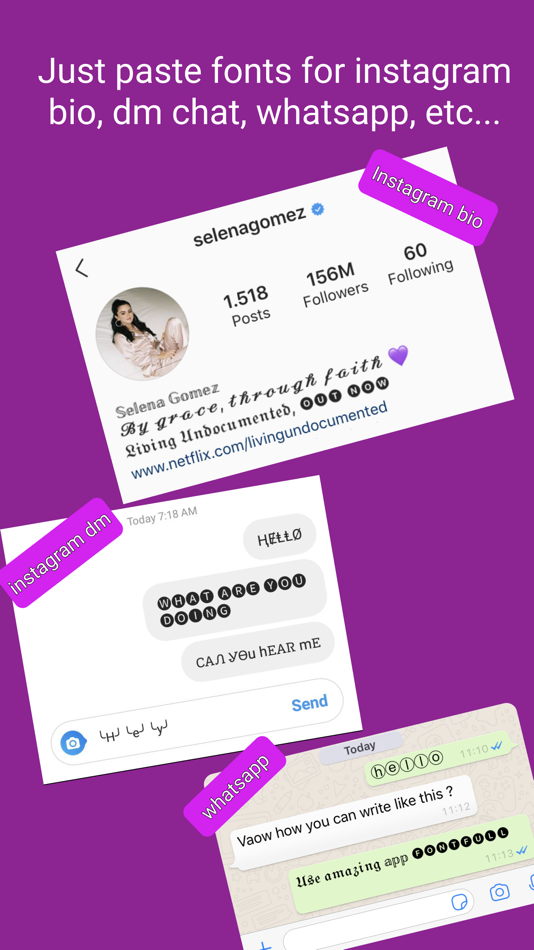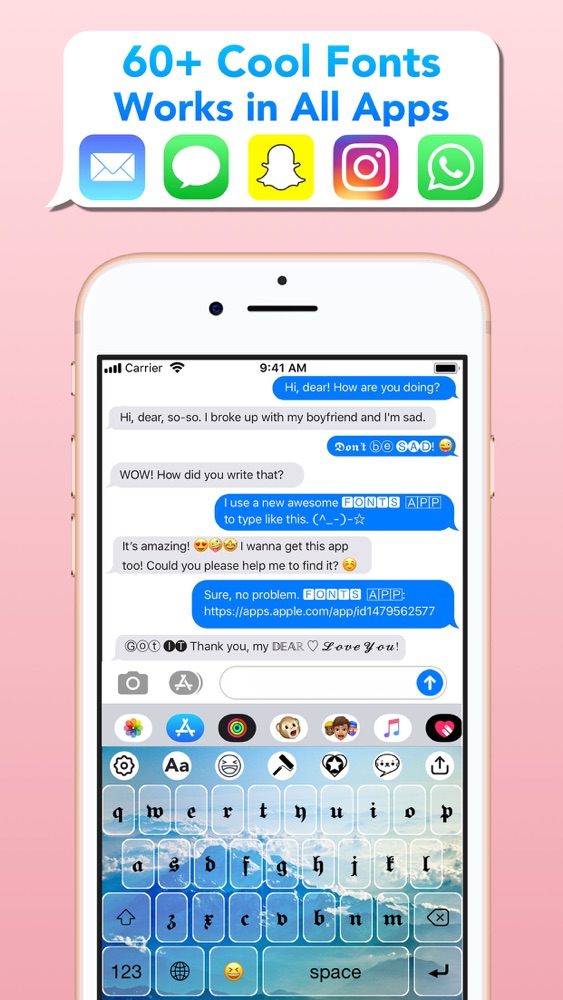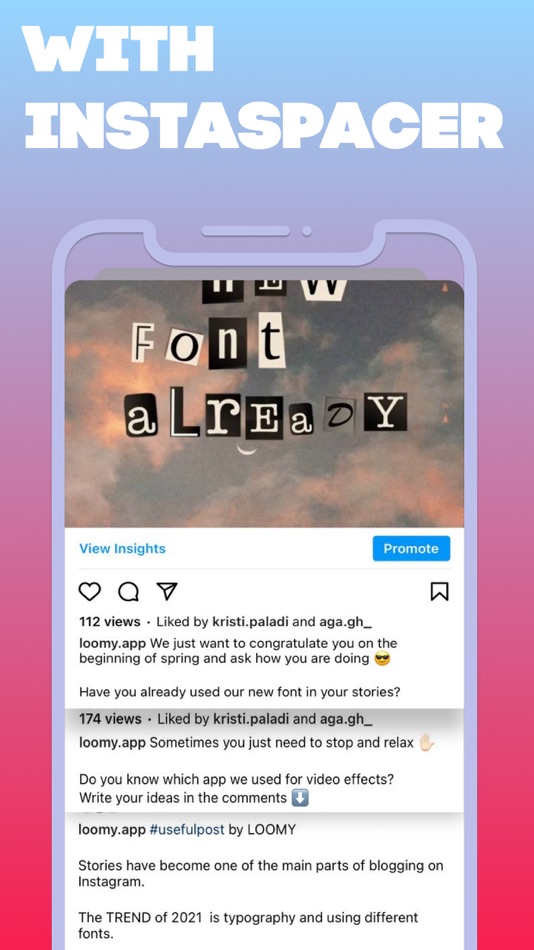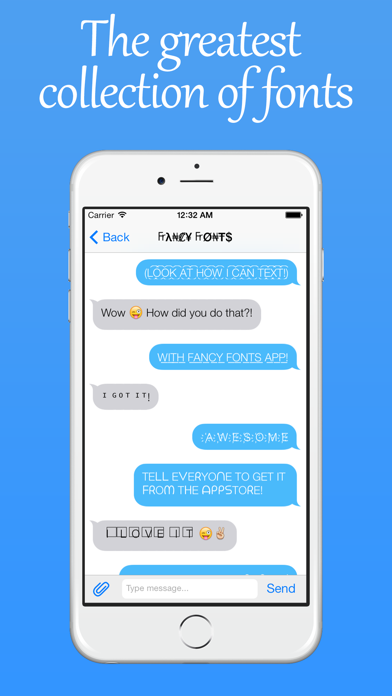
Have you noticed how more and more Instagram accounts use different fonts on their bio and posts? Are you wondering how they do it, and how you could change fonts on Instagram too?
In this article, we’ll show you how fonts work on Instagram and what options you have if you want to change them on your Instagram bio, posts, or profile.
But let’s get something out of the way first.
Why Should You Change Font on Instagram?Well, there are three reasons:
#1. To Stand OutInstagram is one of the most creative social media platforms. Many designers, creators, artists use it to showcase their work. Similarly, many brands are also competing for attention by highlighting their creativity.
And that means that the level of competition in terms of creativity is incredibly high.
Using custom fonts is one way to make your Instagram presence different from the others and stand out.
#2.Instagram is all about experimenting with your content, isn’t it?
The social media platform offers so many ways to do that, after all.
Changing text fonts is another way by which you can showcase your creativity.
#3. To Bank on the Latest TrendsAnother incredible thing about Instagram is the speed at which new trends emerge on the platform. And, let’s face it, they will affect what you do on the platform as well.
Just imagine sticking to a trend for way too long. Eventually, your followers will see your profile as outdated and falling behind the pack.
Using custom fonts on Instagram is currently trending among influencers and brands. This means that it is time to give it a try.
With that off the way, let’s cover how you can change fonts on Instagram.
How to Change Fonts on InstagramThe process is quite simple. To change fonts, you need to use an Instagram Font Generator.
Font generators, as the name might suggest, aim to simplify the process of changing fonts.
But those tools also help you explore all the different options before picking the right font for your brand, giving you the freedom to choose insta fonts you’d like.
There are four main Instagram font generators that you could use:
IGFonts.io – This is a very simple tool that helps you pick the best font for you. All you have to do is type the text and explore all the available fonts.
The tool’s interface includes only a text field where you can type your Instagram content to style. Once you’ve done that, the tool will generate fonts to output your copy, allowing you to choose the one you like.
FontGet – Instagram Font Generator – Here is another simple option to try based on a text box and a list of all the available fonts that you can use.
However, FontGet also expands your options with emojis, cool symbols, and text faces.
MetaTags Font Generator – If you want to preview how your new font shows up on your bio, then this tool is for you.
You can use it to preview your profile with different fonts and see how they’d work to represent your brand.
Fonts.Social – This is a fun tool to try out new fonts while exploring their emoji recommendations that go along with your text.
How to Change Font on Your Instagram BioLet’s look at the step-by-step process on how to add custom fonts to your bio.
First of all, you need to use one of the Instagram font generators we’ve mentioned above.
Let’s say you decide to use the MetaTags Font Generator. Here’s the exact process to use it to change fonts on your bio:
TIP: Keep in mind the limit of 150 characters, so make sure you provide all the necessary details for your brand in this section.
Here’s how the process will look like when changing fonts on an Instagram post.
Once again, you need to start with an Instagram font generator. We’re picking IGFonts.io this time.
So, here’s what you need to do:
Custom fonts can also help you decorate your Instagram Stories.
Changing fonts on your Instagram Stories can help you build your brand through everyday content. Even if you simply stay consistent with a couple of fonts that reflect your brand, it’s still a creative tactic to play around based on the different themes you are focusing on.
There are two different ways to use different fonts on your Instagram Stories:
Let’s look at the second option.
Changing Instagram fonts is relatively easy, isn’t’ it? Unfortunately, making sure that custom fonts work for your brand and elevate your image is entirely different.
That’s why there are some things I recommend you keep in mind when changing fonts.
#1. Don’t Change All Your Instagram FontsFirst of all, you don’t necessarily need to change all your Instagram fonts. Just because it’s fun and it can help you stand out, it doesn’t mean that you need to use them on all your posts.
In fact, it’s better to use the new fonts strategically so that they help you stand out.
There’s no need to go through the process of using an Instagram Font Generator for every single feed post. It will soon look repetitive to your followers.
What kind of emotions can I evoke with a font on Instagram?
You can change the font to any, for example, Gothic, fairy tale, Greek, cursive. Each of them evokes different feelings: nostalgia, interest, associations with something ancient and mythical, magical and secret. Use fonts depending on your goals or account theme.
How should fonts be combined on Instagram?
There are no rules in typography: just make sure that the combined fonts have at least a few similar elements